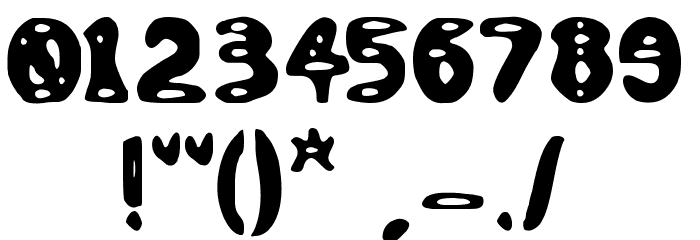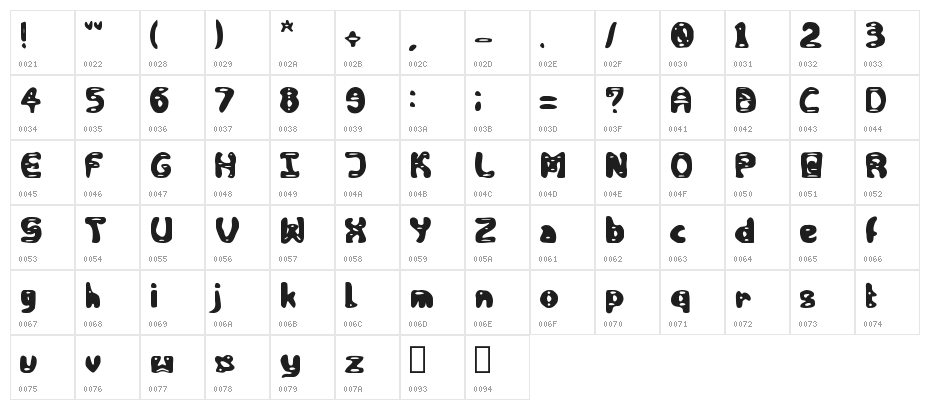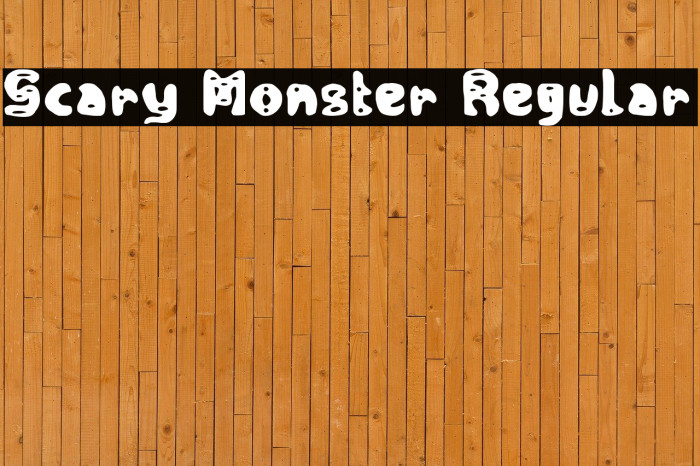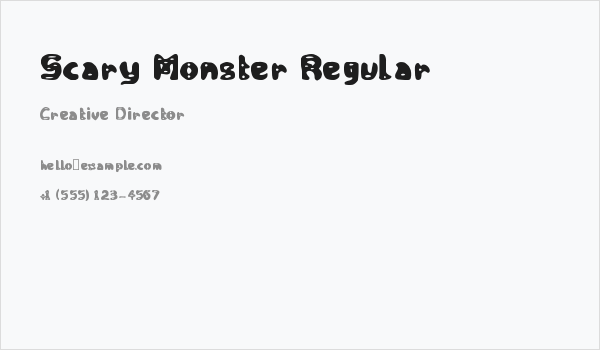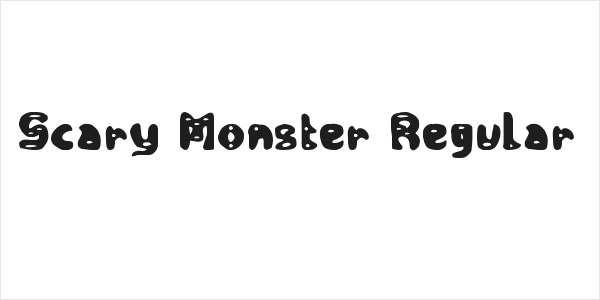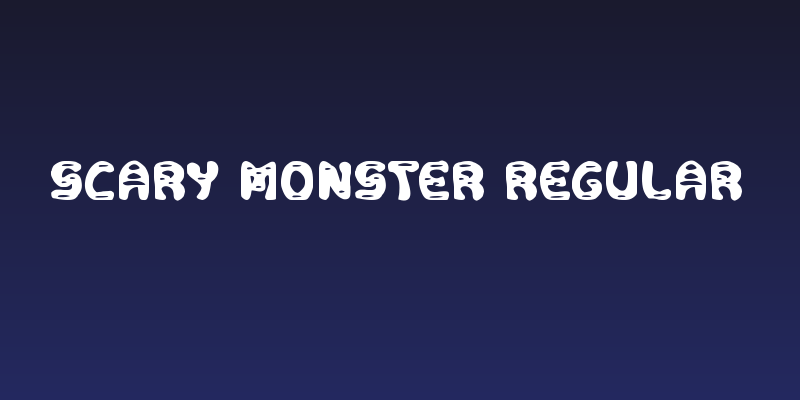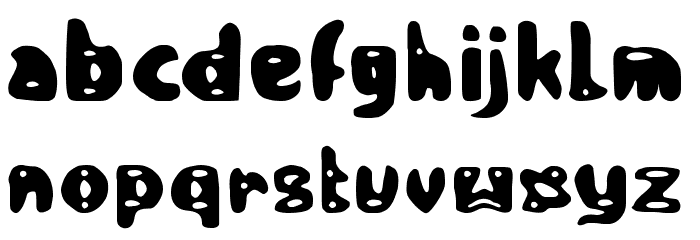
Scary Monster Regular Font
Scary Monster Regular Description
This font features a playful and spooky design, reminiscent of classic Halloween themes. The characters are bold and irregular, with a bubbly, organic shape that gives them a monstrous appearance. Each letter has unique cutouts and uneven edges, adding to the eerie and whimsical feel. The font maintains a consistent thickness throughout, with rounded edges that soften the overall look. It captures a sense of fun and fright, making it perfect for themed events or creative projects that require a touch of the supernatural.